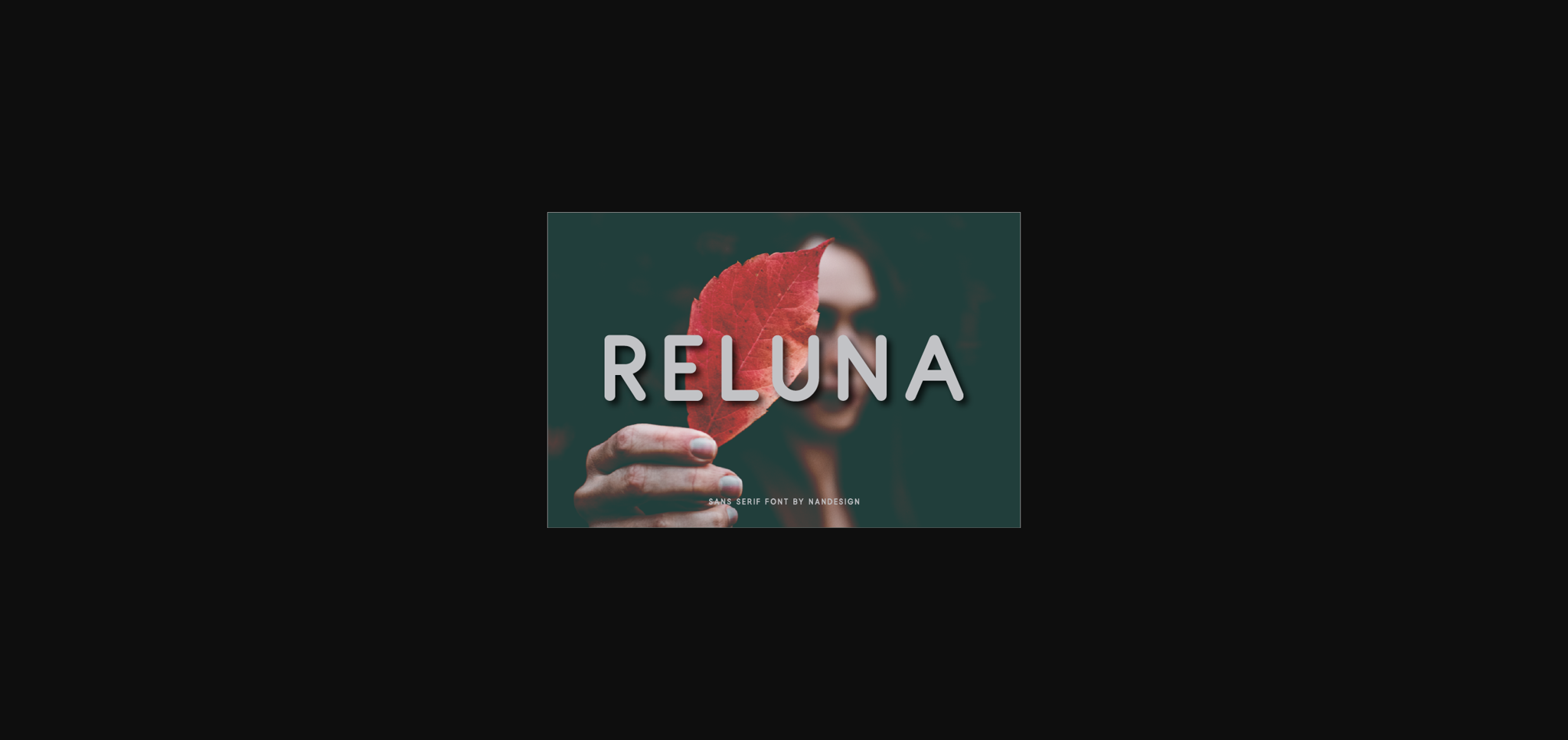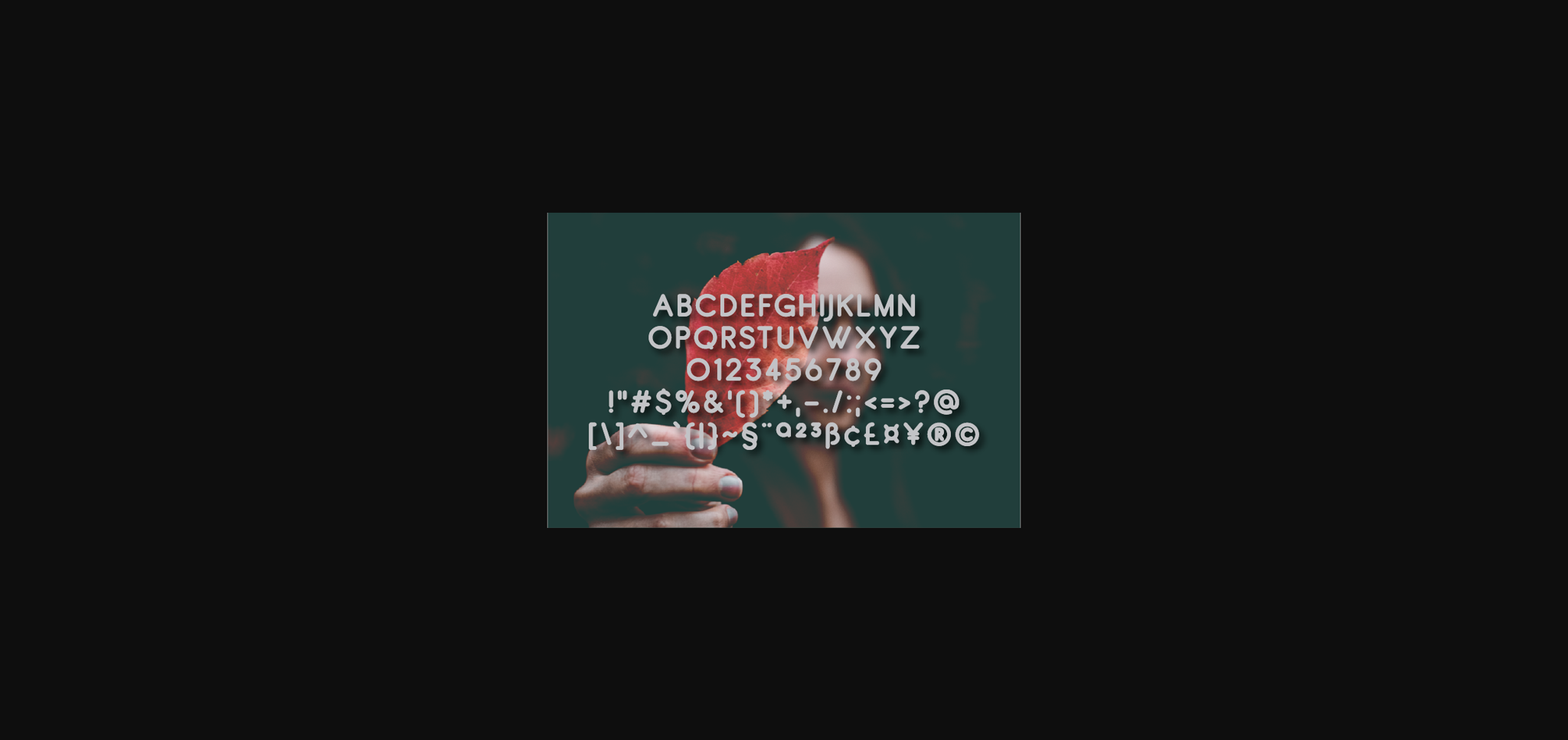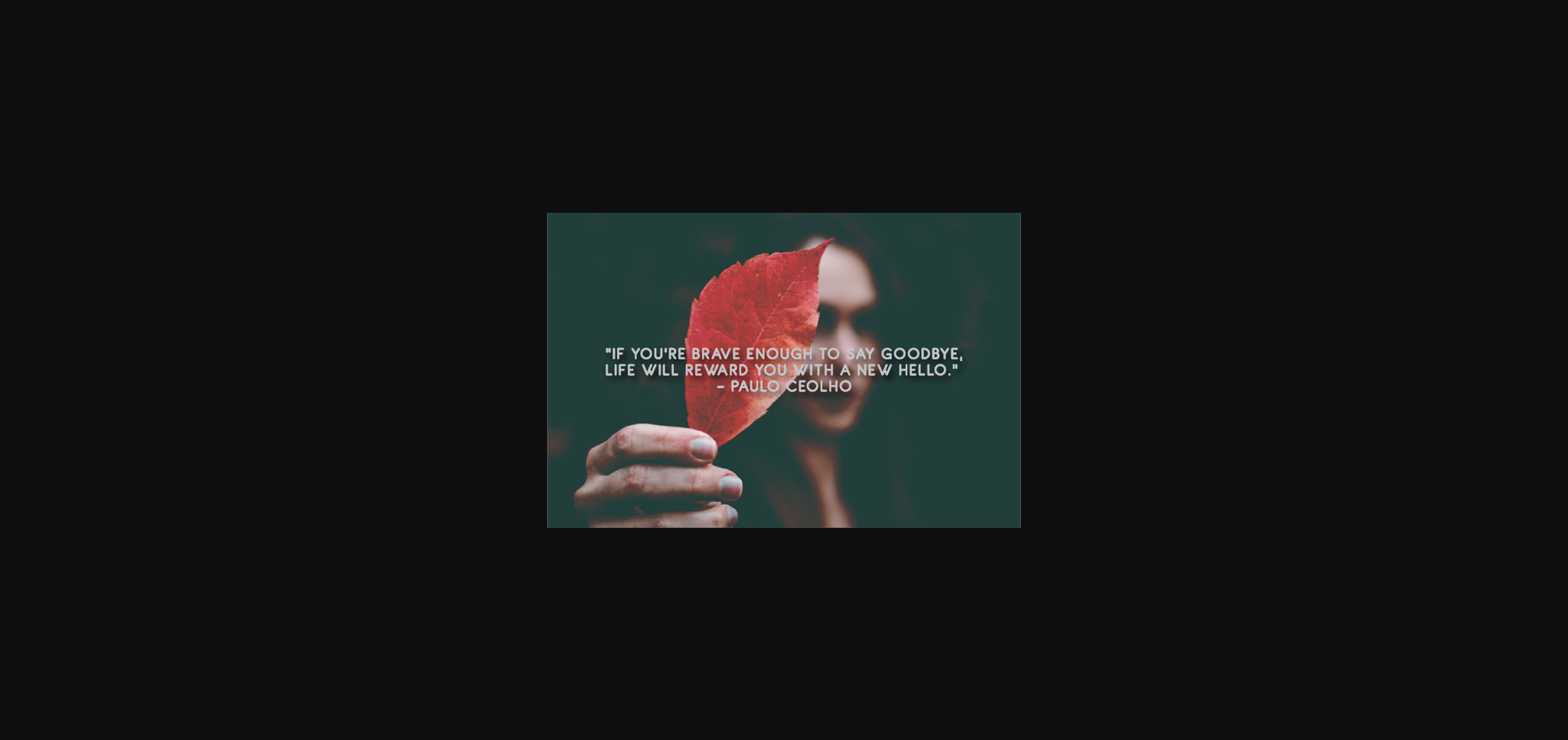
About Reluna Font
Reluna is a stunning sans serif, ideal to complement every project you’re working on.
Use it to create beautiful headings, gorgeous invitations, stunning logos, and so much more!